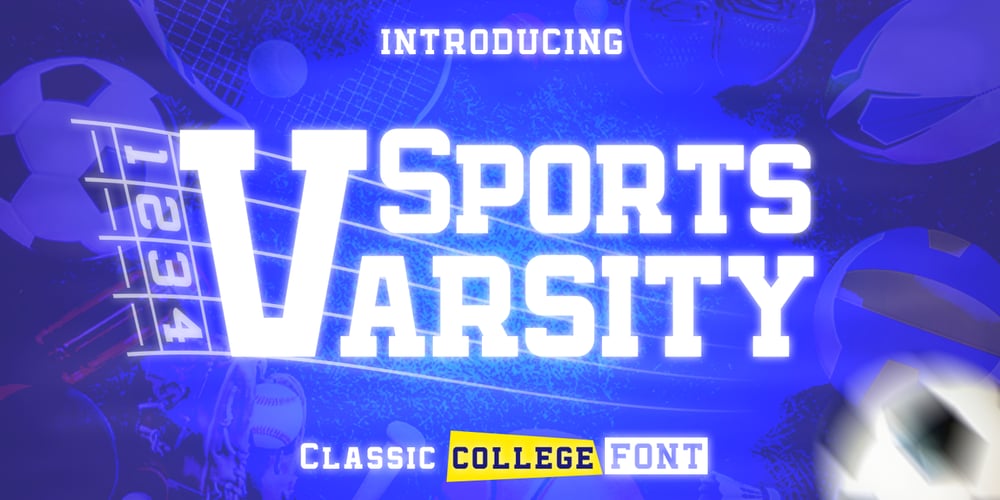
Sports Varsity Font Family was designed by Mohammed Lamjidi and published by Beast Designer. Sports Varsity contains 1 styles and family package options. The Sports Varsity Font is a bold and dynamic typeface reminiscent of traditional athletic lettering. Characterized by its strong, blocky letters, this font often features a vintage or retro style, evoking a sense of nostalgia for classic sports team logos and jerseys. Its uppercase letters are typically robust and heavily stylized, with sharp edges and impactful strokes, while the lowercase letters often maintain a similar boldness but with a slightly smaller size. The font’s design exudes a sense of energy and competitiveness, making it a popular choice for sports-related designs, posters, team uniforms, and other athletic-themed graphics.